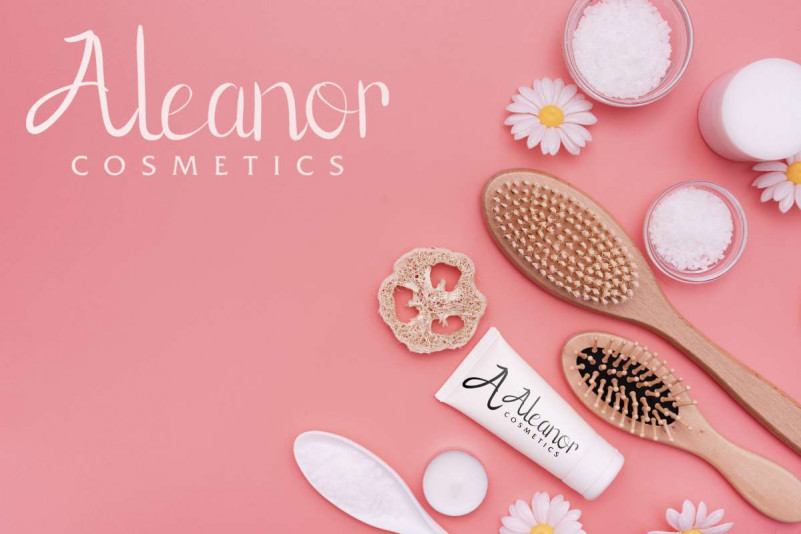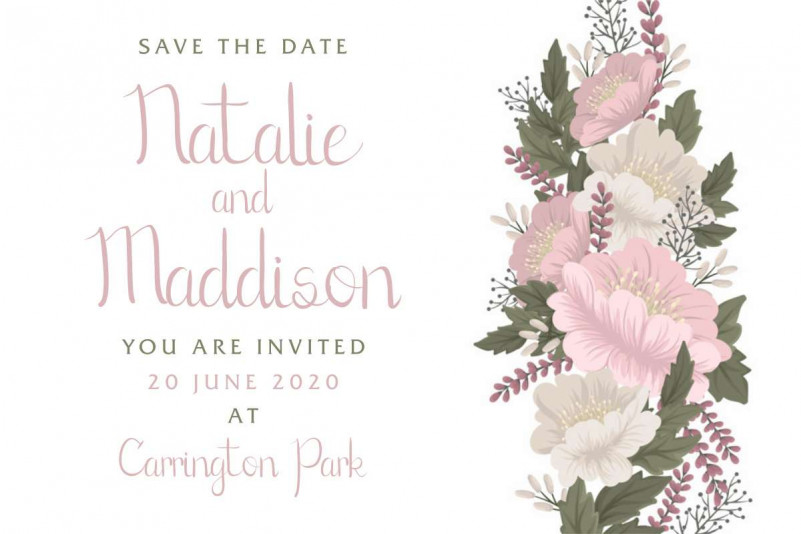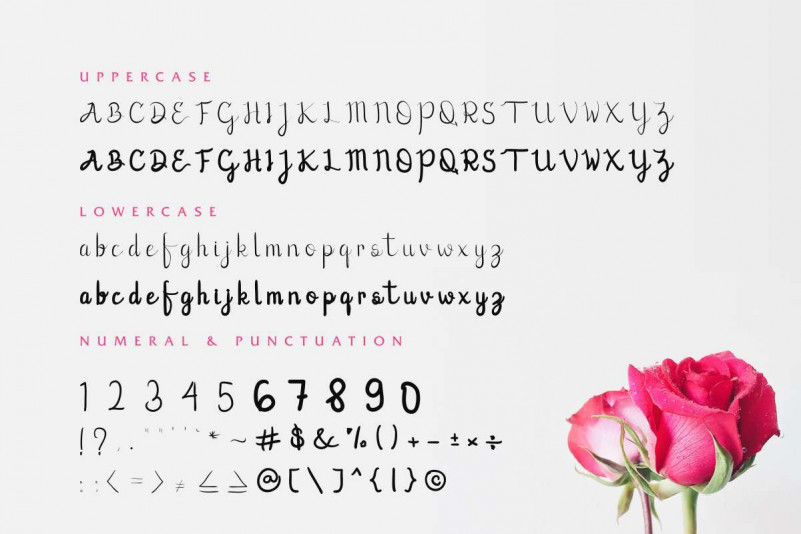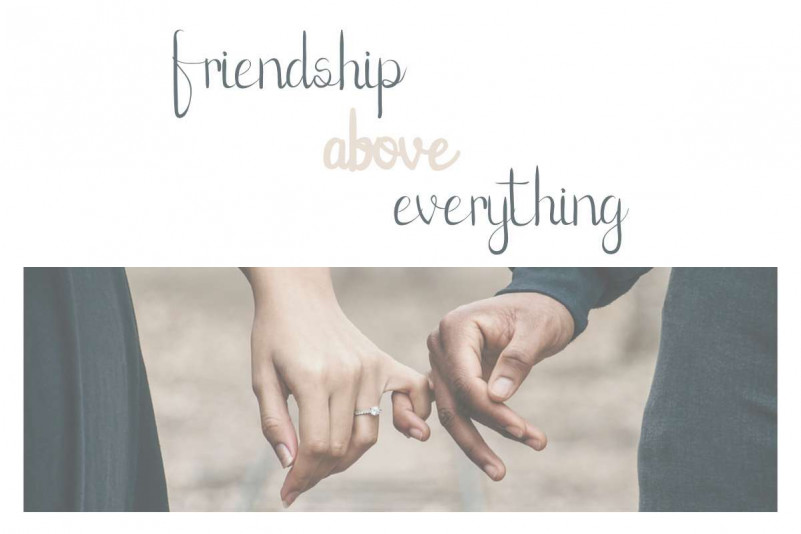
Lovic Handwriting Font
Helo Everyone! Our latest font is here! It is Lovic Handwriting Font family. Lovic is a calligraphy script font that has an elegant styles and unique glyphs. Made in 2019, this new font will be great for all of your creative works : logo type, stationery, business card, signage, flyer, brochure etc. There are many industries that is suitable for this font : salon, non profit, health care, etc.